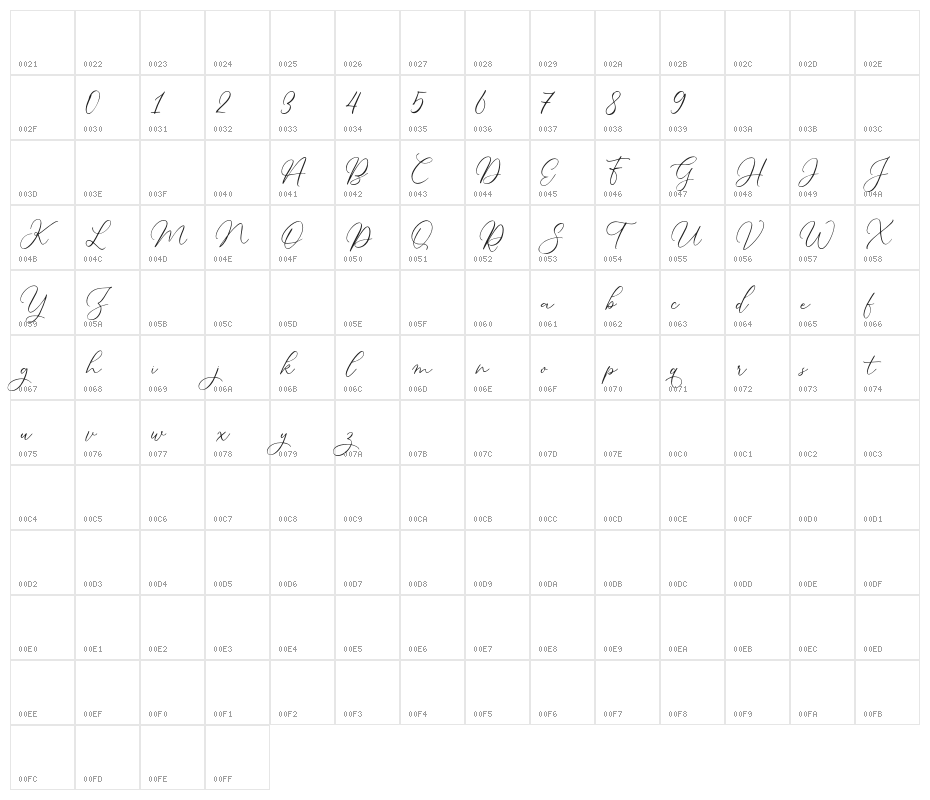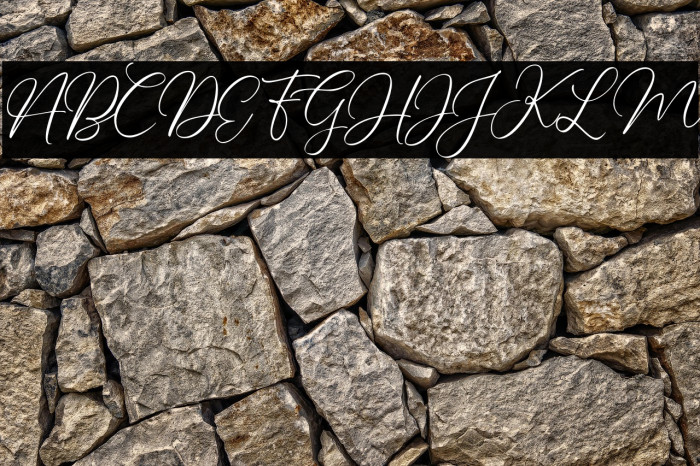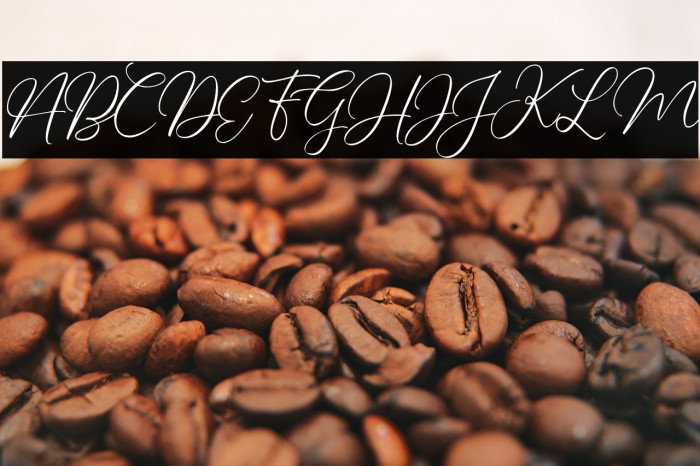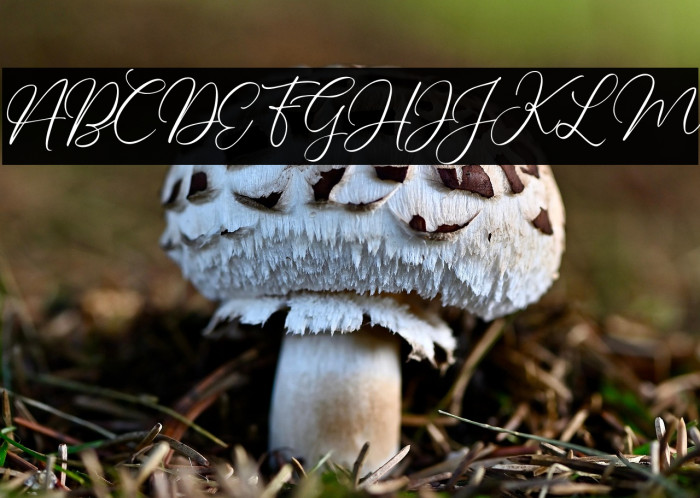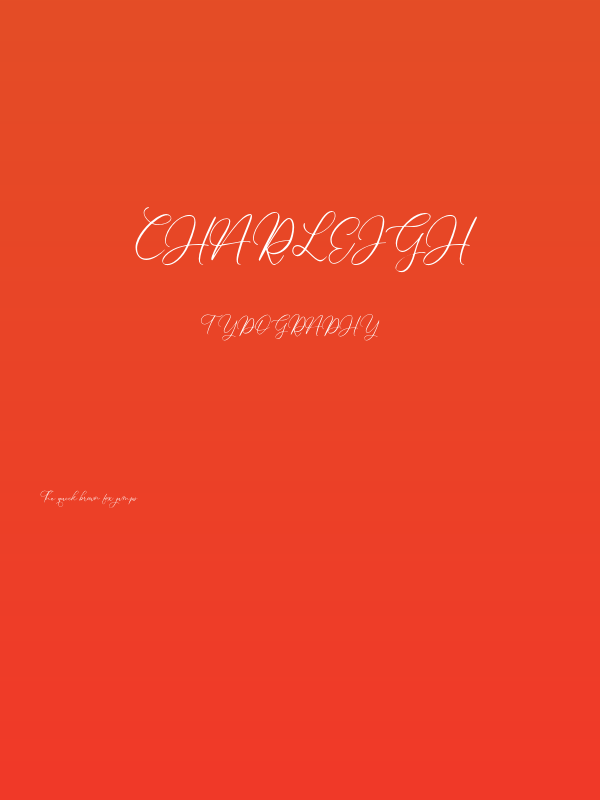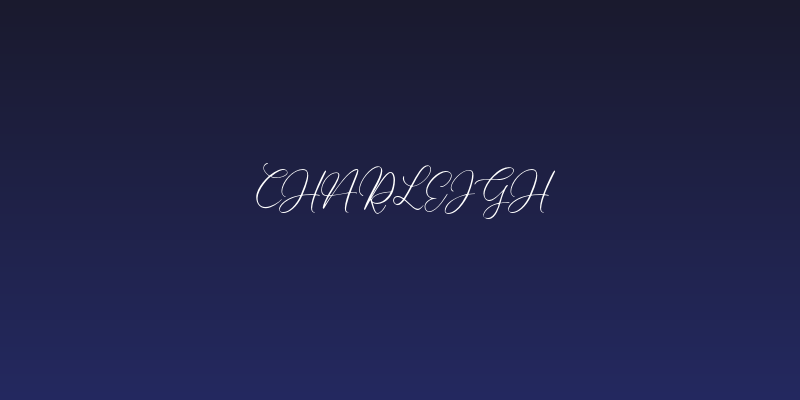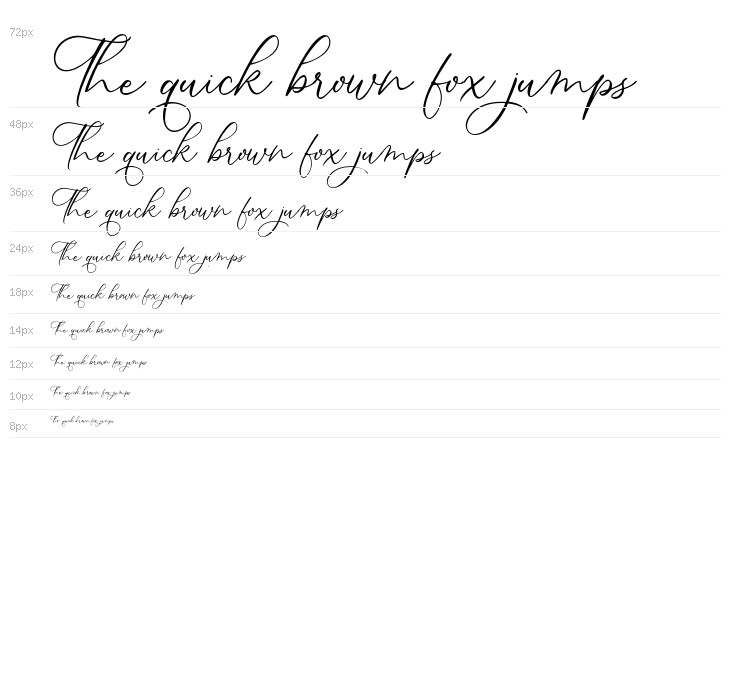
Charleigh Font
Charleigh Description
This elegant script font features flowing, interconnected letters that convey a sense of sophistication and grace. The uppercase letters are particularly ornate, with sweeping curves and flourishes that add a decorative touch. The lowercase letters maintain a consistent style, with gentle loops and smooth transitions between strokes. The numerals are clear and maintain the same elegant style, making them suitable for a variety of uses. The special characters are designed to complement the overall aesthetic, ensuring a cohesive look across all text elements.